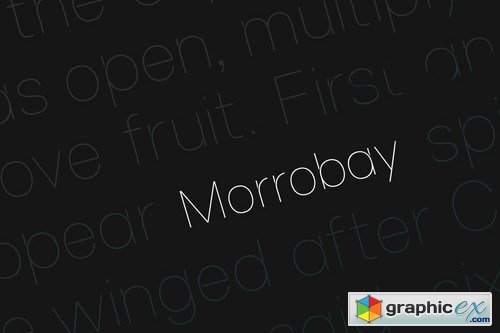
Morrobay Unique Typeface with Web-fonts
Morrobay is a modern Sans Serif typeface very much suitable for Film Posters, headlines, Block letter, Subheading, Logo Designs, Big Banners. Creative & Decorative Typography Web Designs.